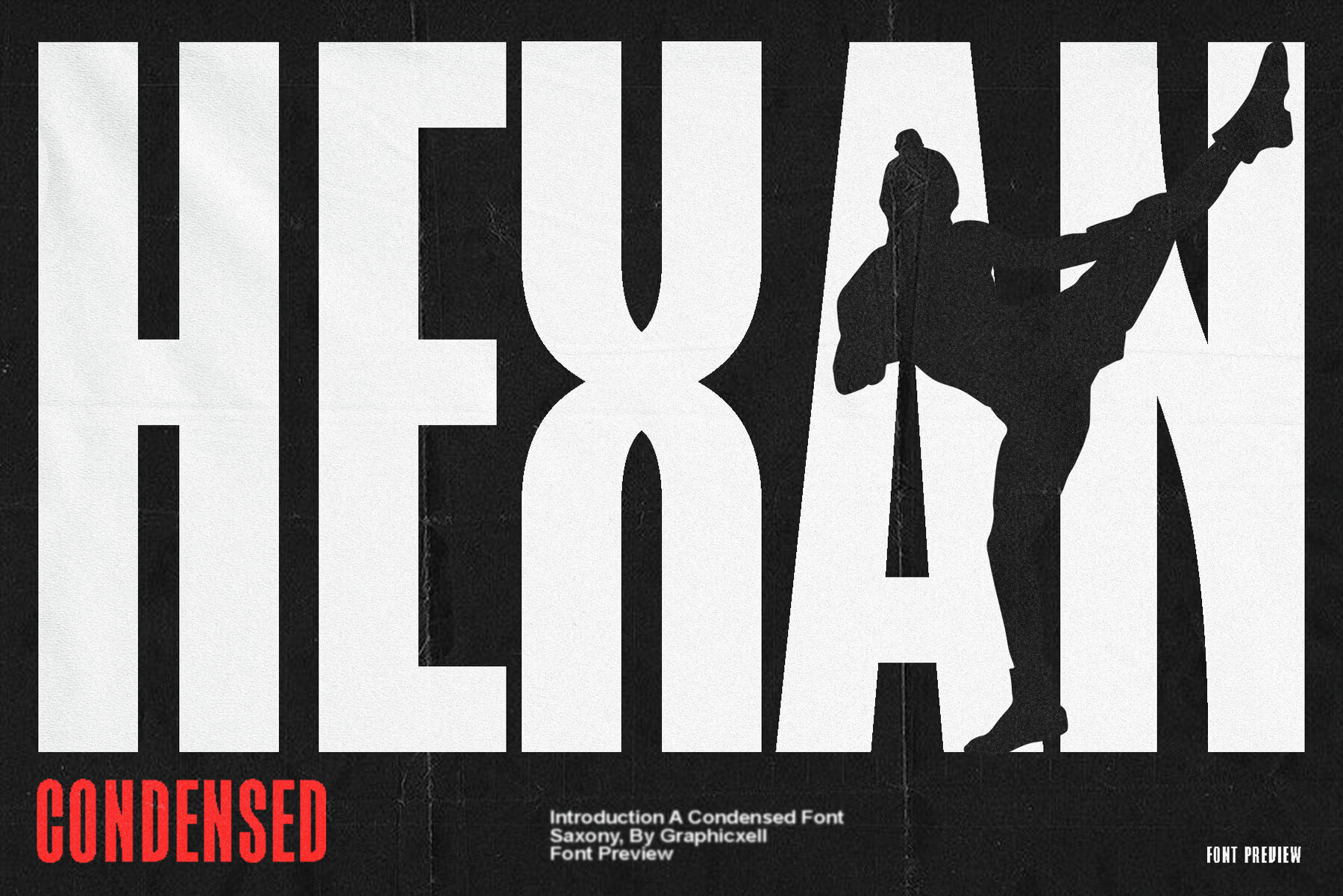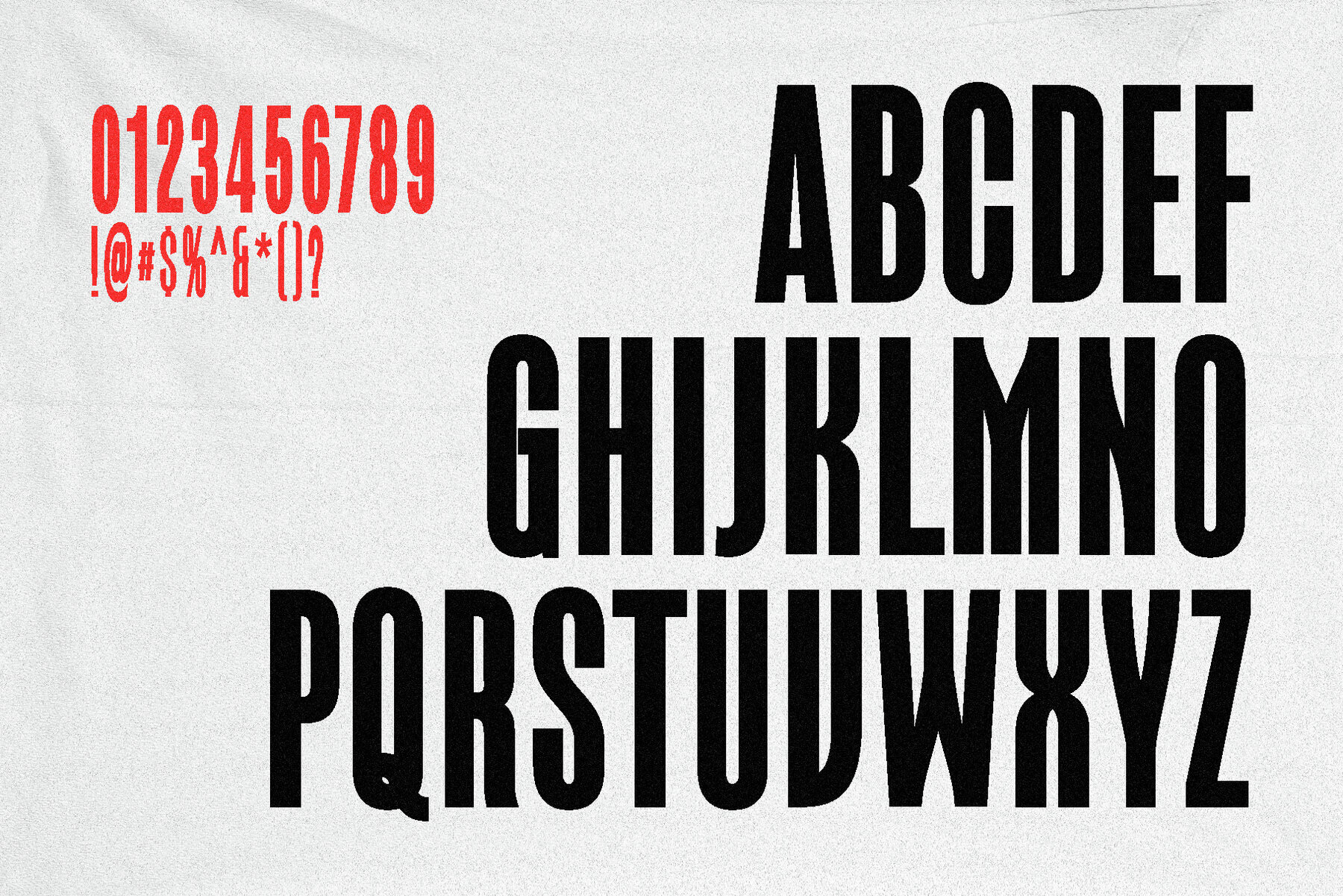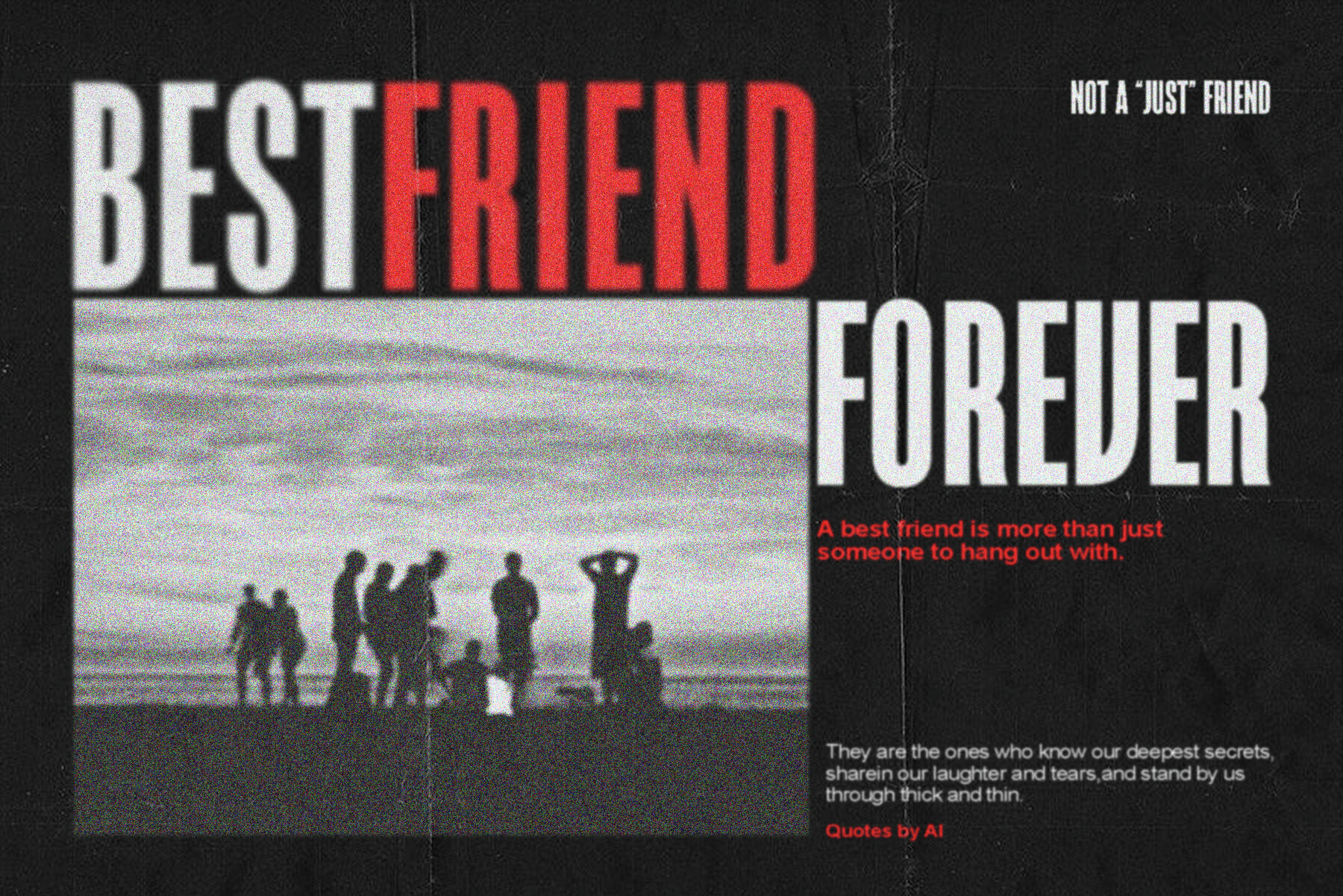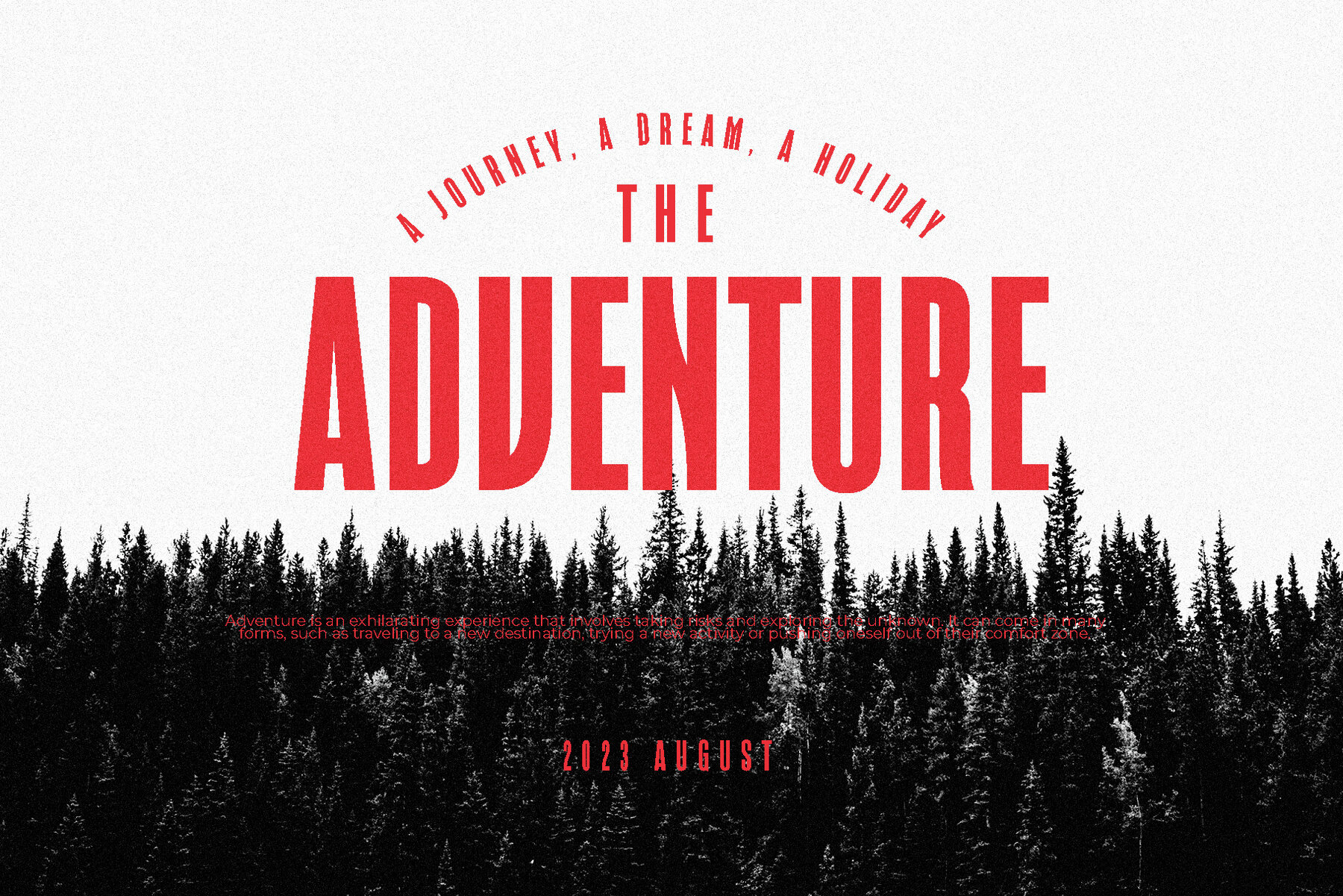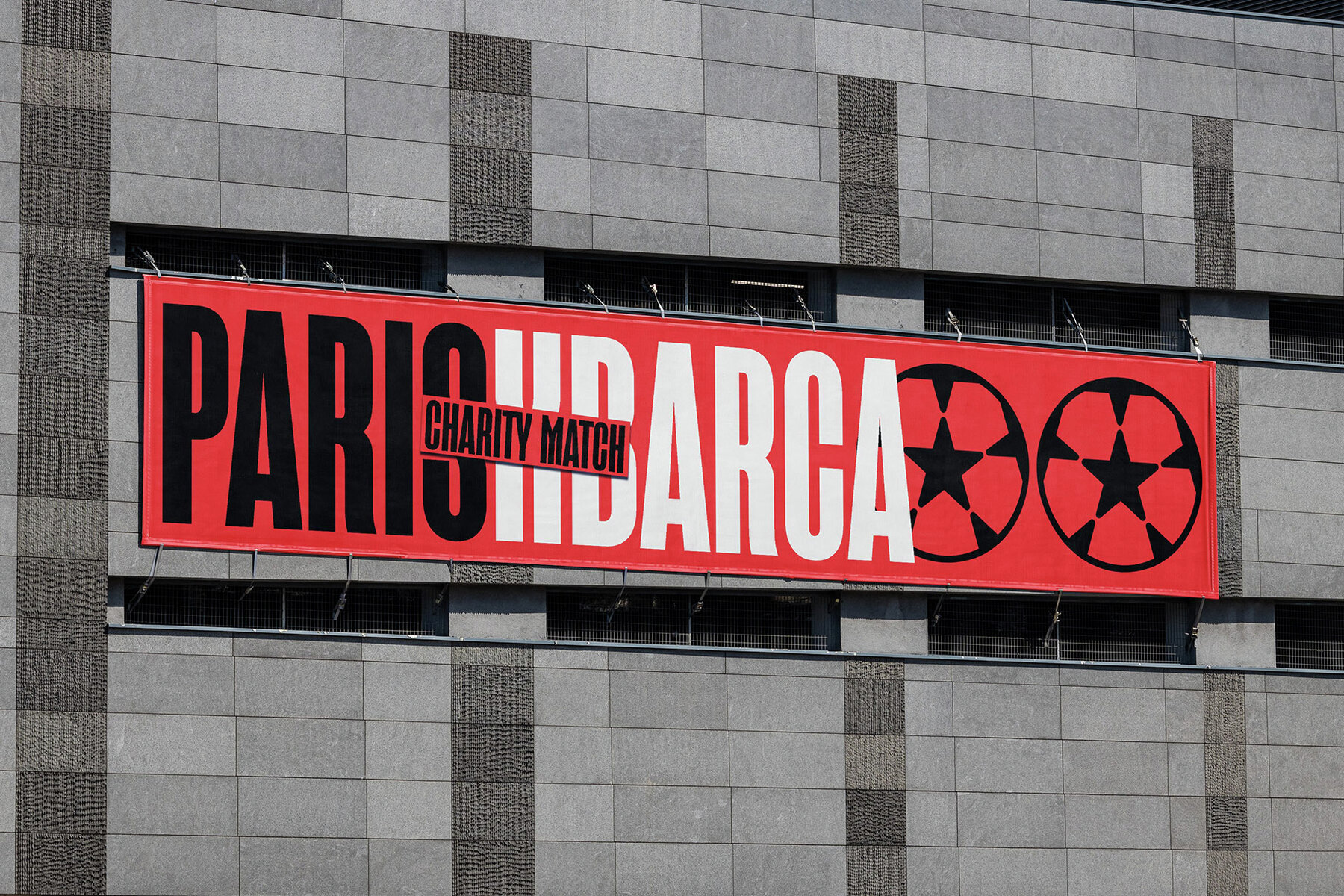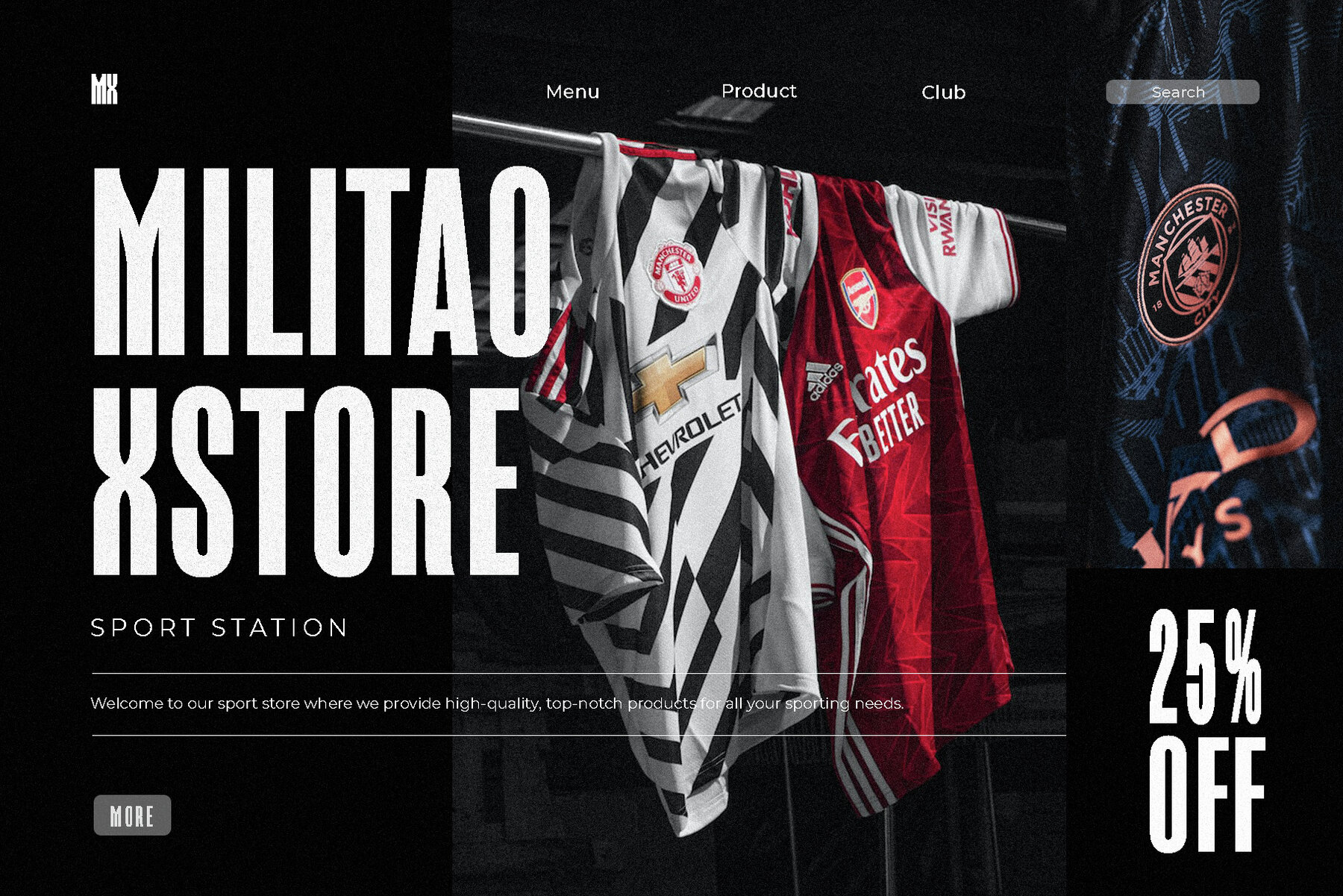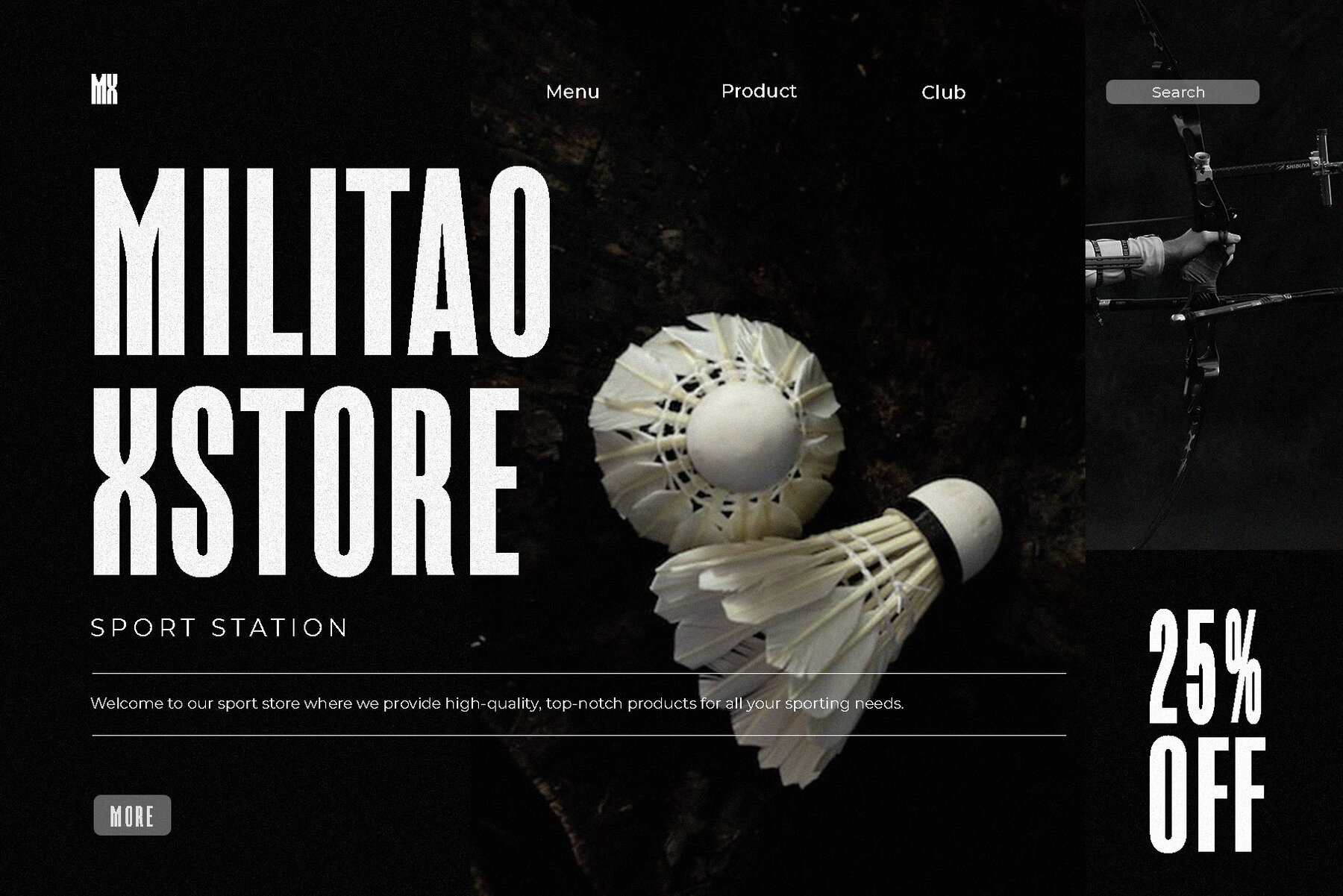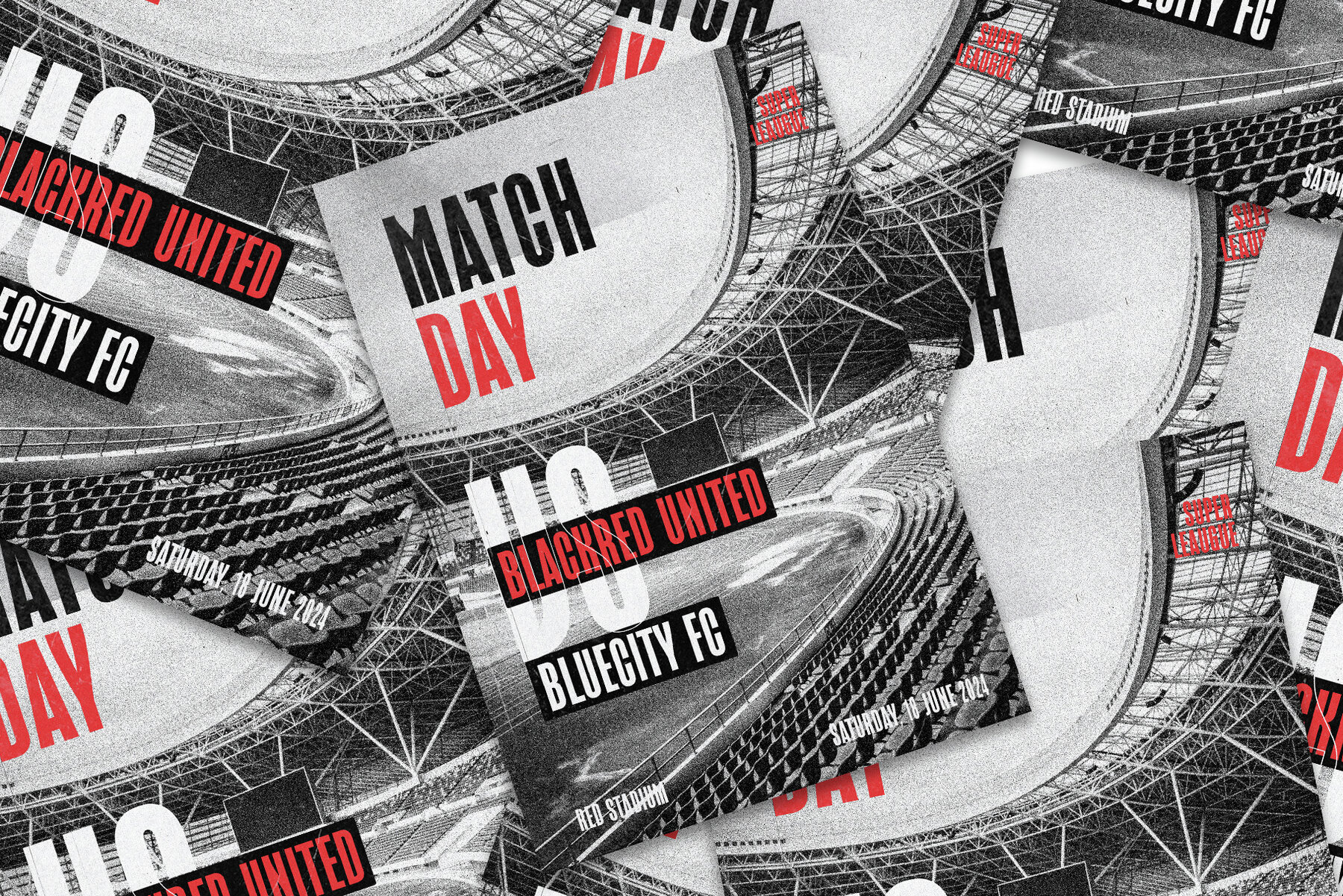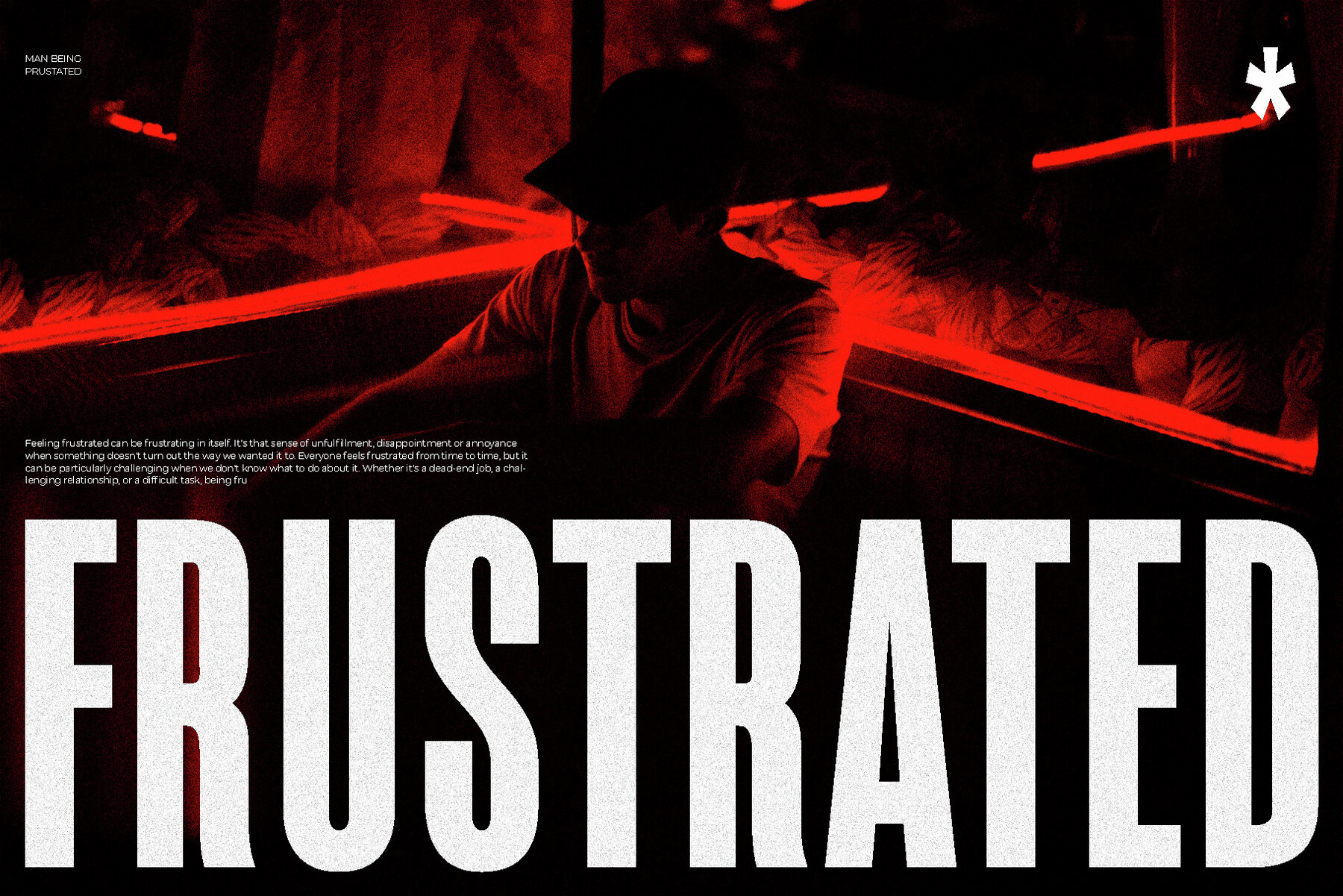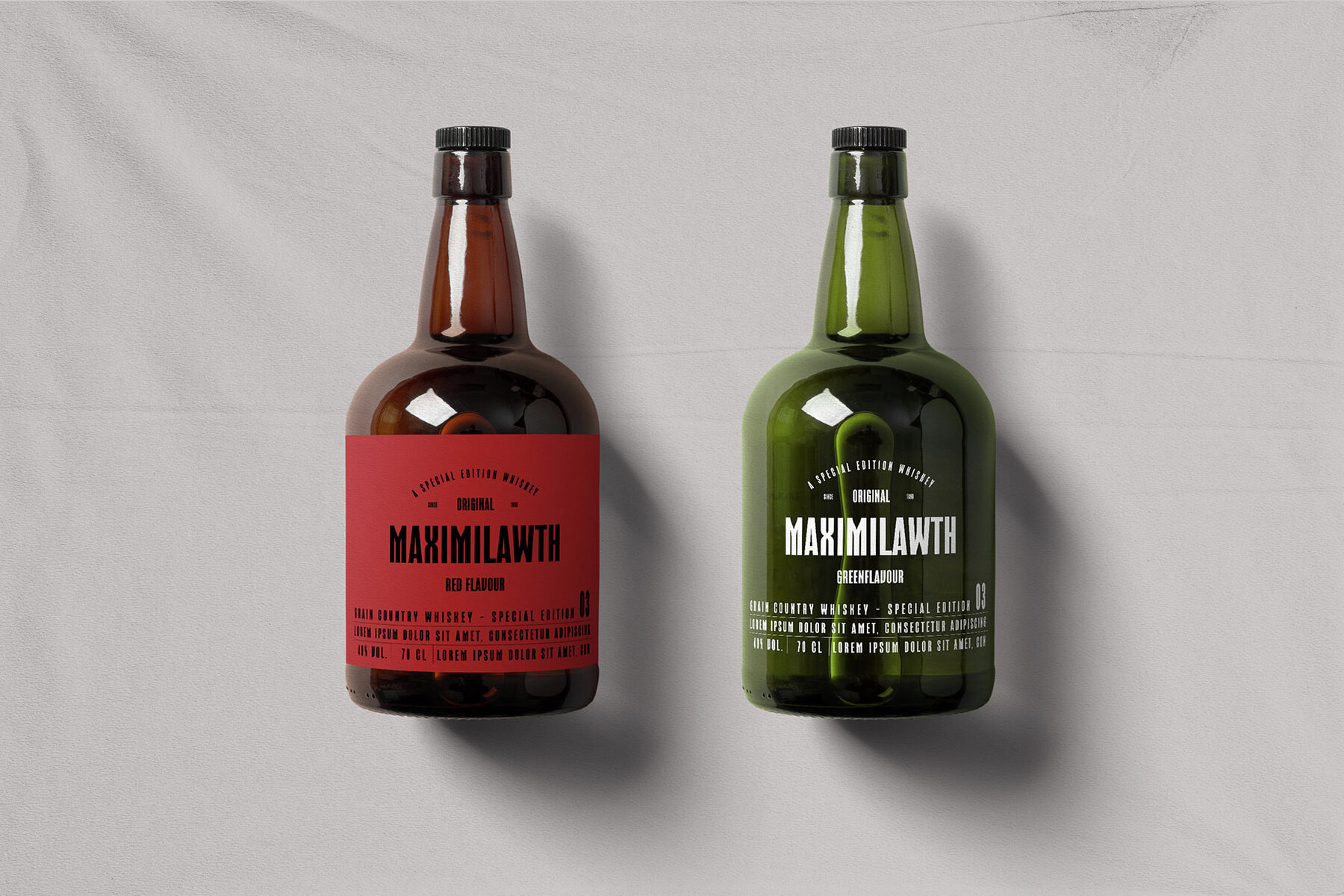
Hexan Font
Hexan Regular
This typeface encapsulates a rhythm that is symmetrical and balanced due to a unique mix of different sources of inspiration. Proportions are precisely adjusted with subtle contours and subtle contrasts. These shapes give the font an attractive look without compromising on elegance and minimalism, ensuring that any glyph will work well in any graphic design purpose such as brochures, videos, advertising branding, logos, magazines, layout designs, posters, post templates, games and others